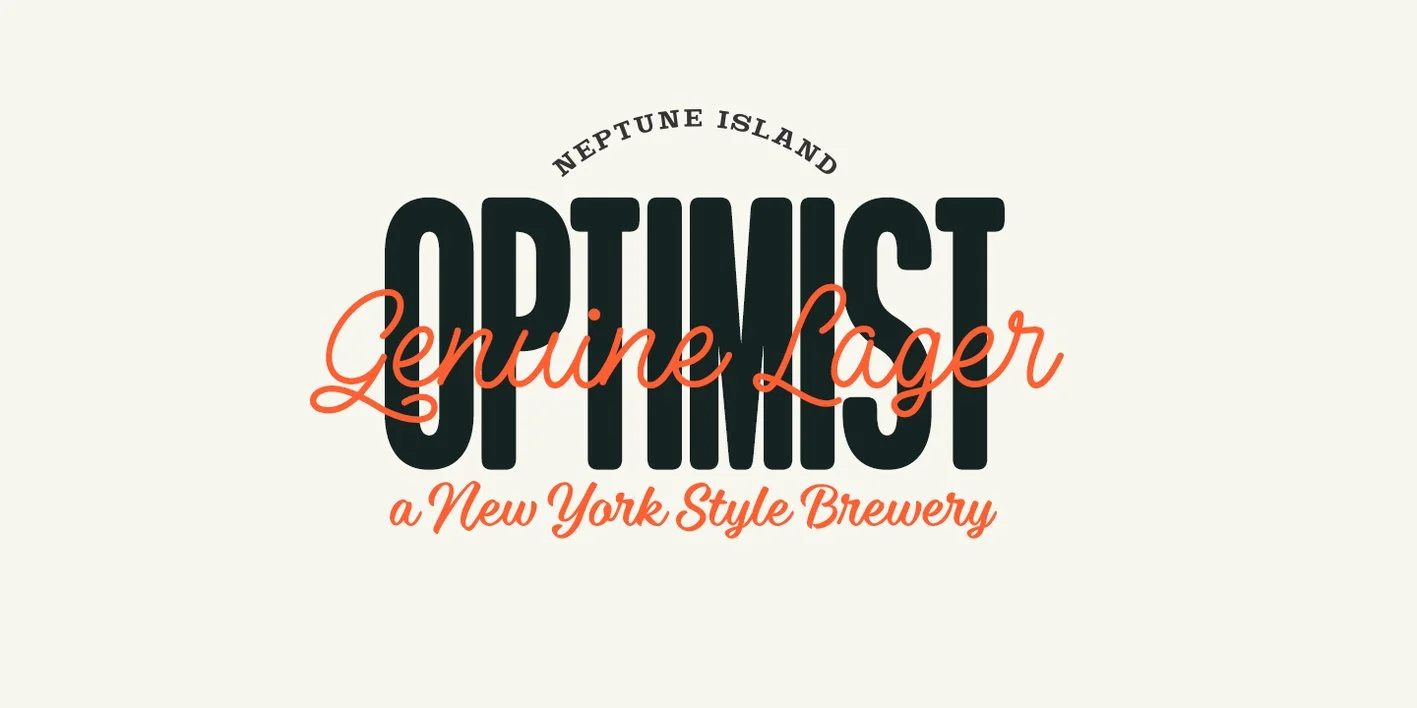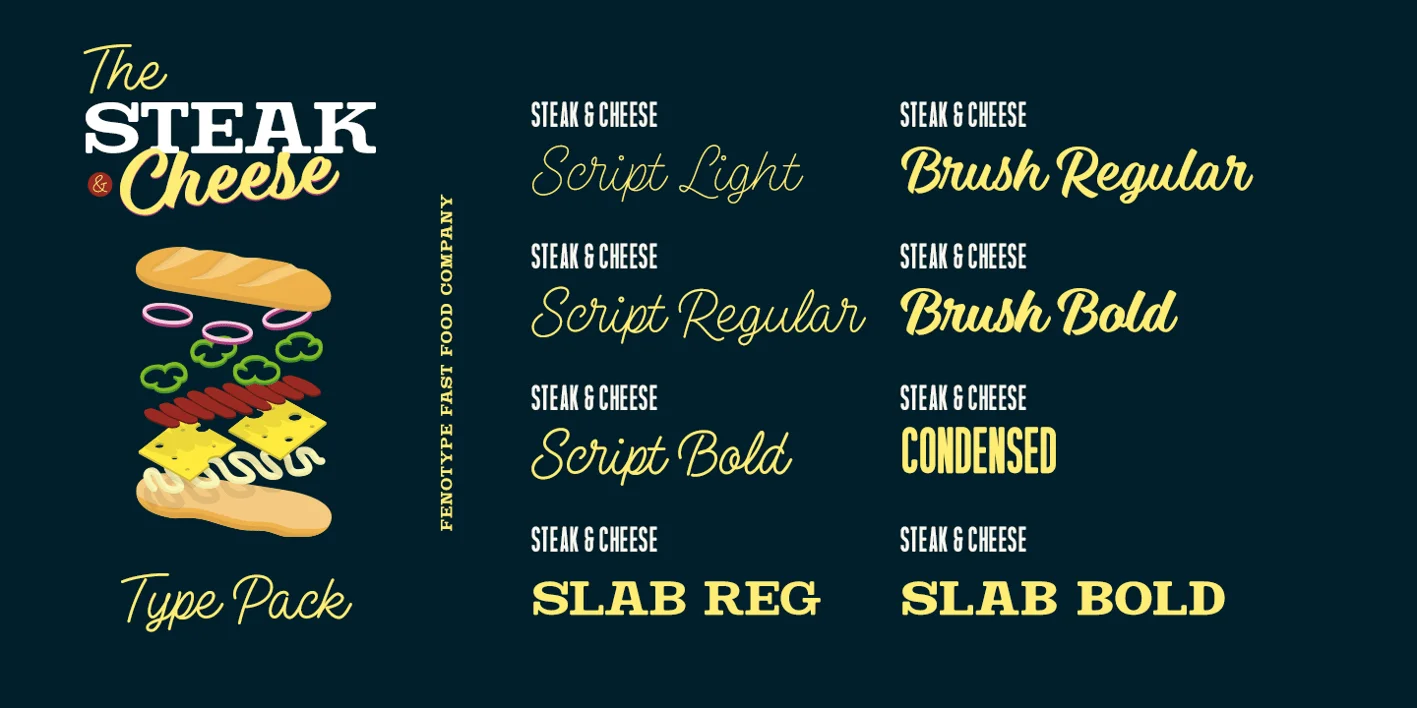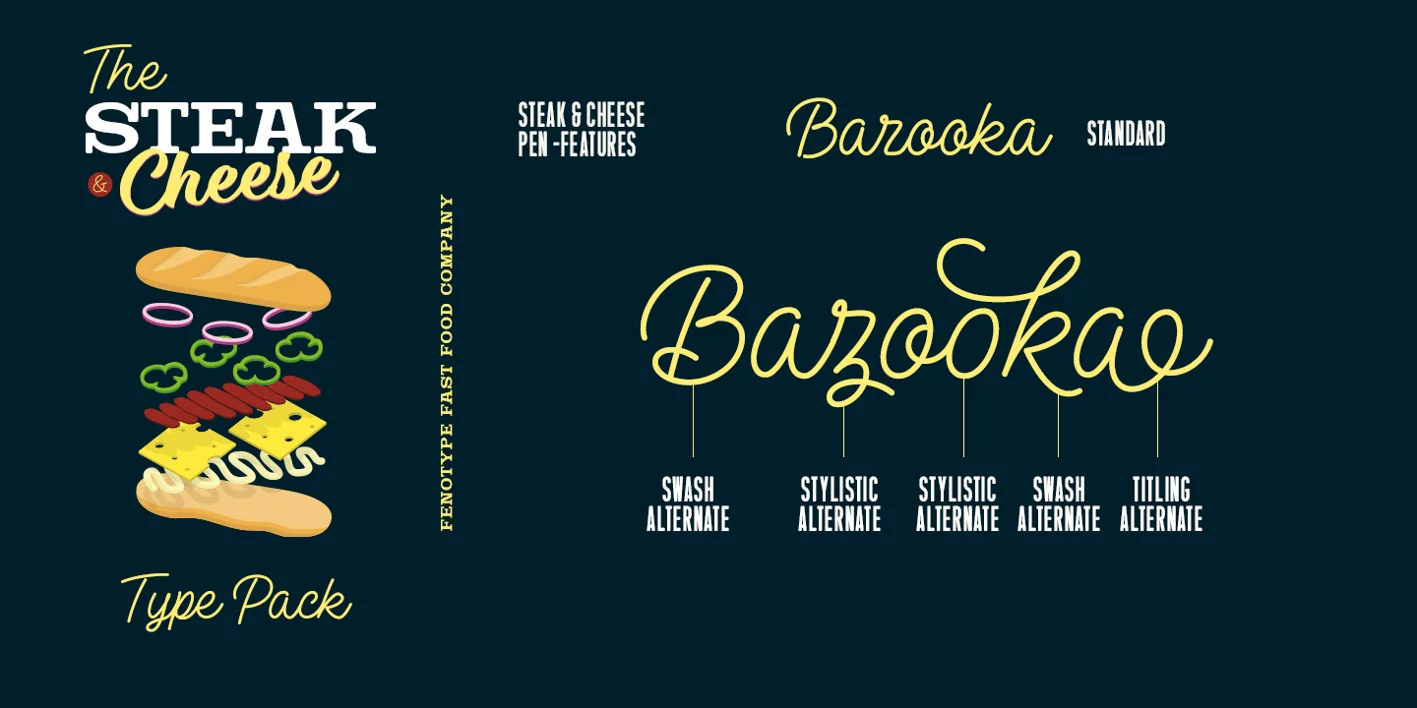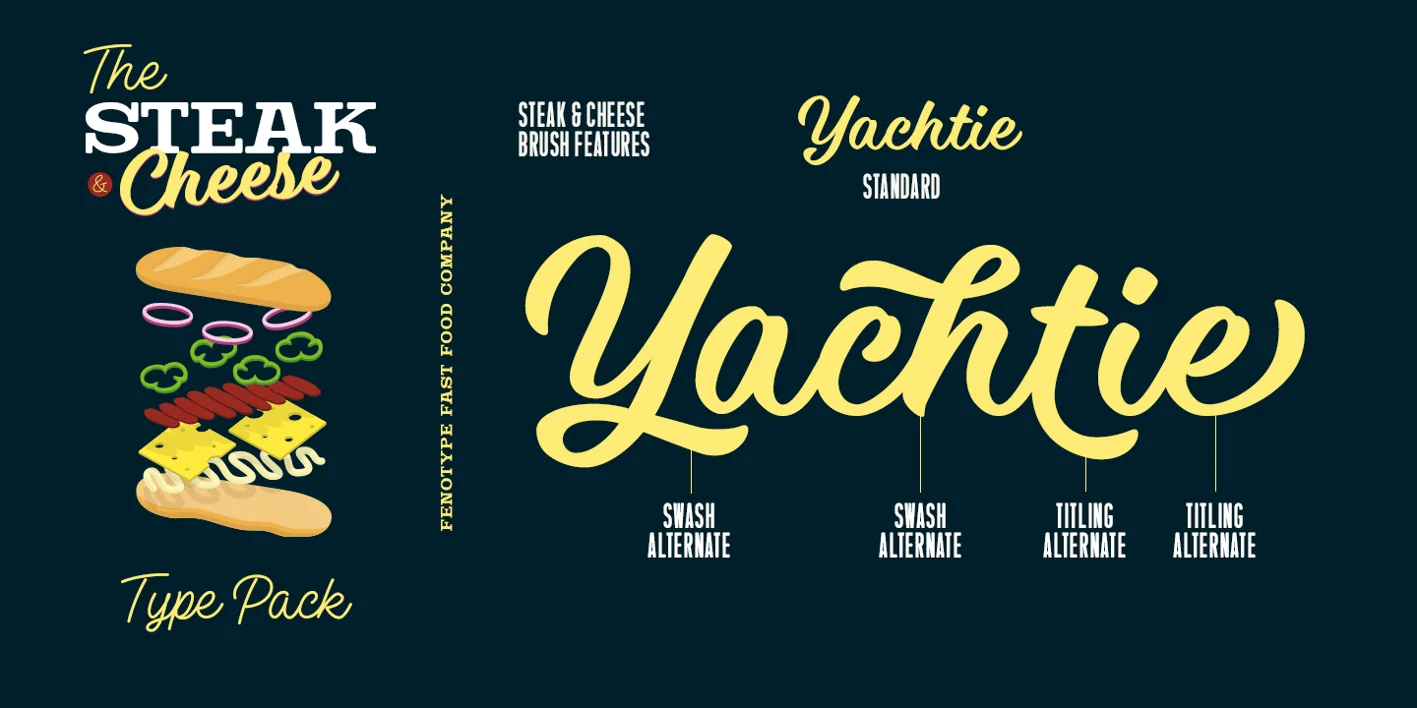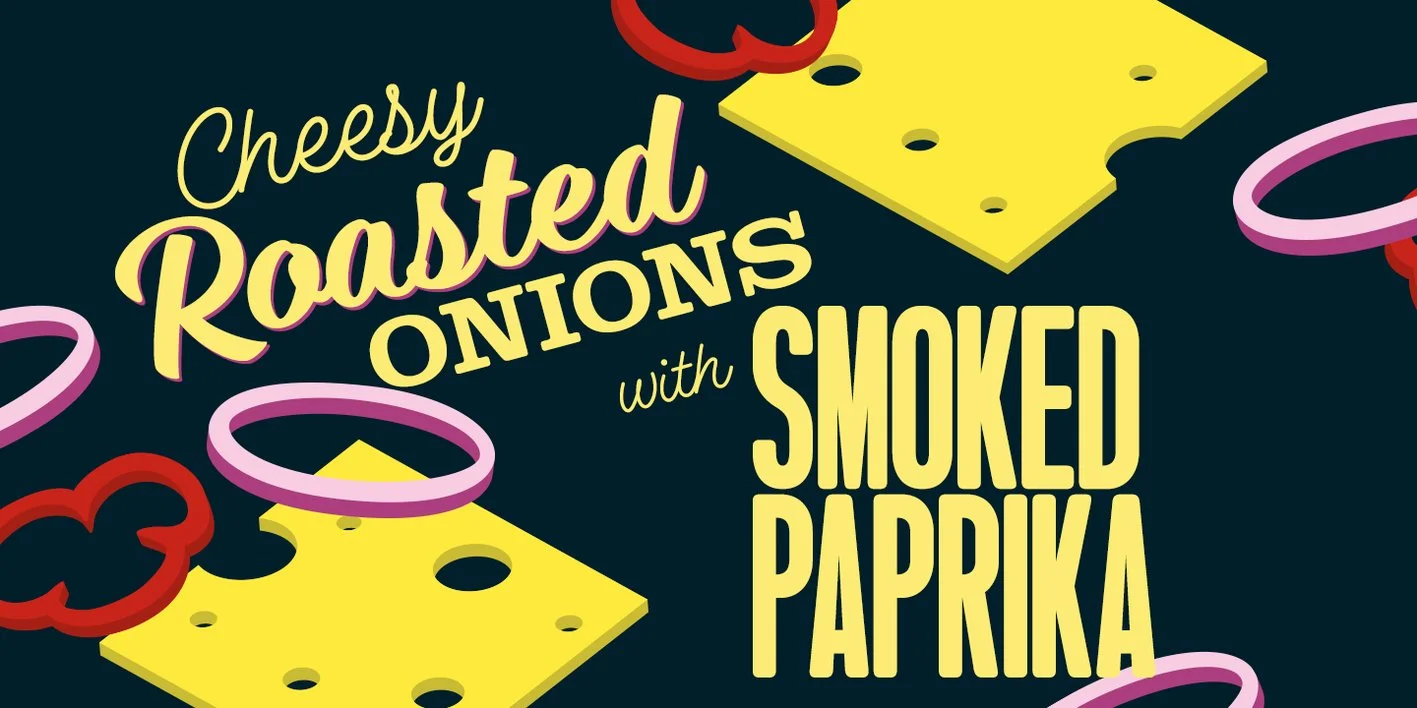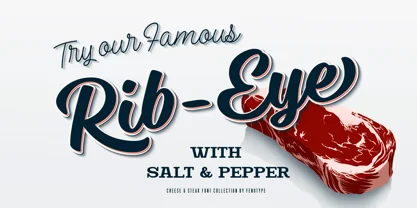
Steak And Cheese Font
When a design brief calls for both consistent type colour across continuous text and immediate visual impact, type choices matter — Steak And Cheese answers that brief. The typeface brings a versatile sensibility to a broad range of creative disciplines, with strong typographic hierarchy support that holds up whether the work is print-first or screen-first.
In practice, Steak And Cheese proves particularly effective for advertising campaigns, logo design, editorial layouts, packaging design, web design. Designers reaching for it find that the type decisions feel resolved rather than laboured — a useful quality when client timelines are tight.
The range of applications extends to poster creation, brand identity systems, environmental graphics, social media graphics. That breadth is deliberate: the proportions and spacing were stress-tested across a wide range of mock briefs before the typeface was finalised.
Steak And Cheese sits comfortably alongside both classic and contemporary typefaces in multi-font hierarchies. It takes direction rather than competing for attention — a quality that experienced designers know is harder to find than it appears.
UX designers establishing typographic systems for digital products find Steak And Cheese a reliable choice for projects that demand both personality and restraint. The design avoids the self-conscious quirkiness that dates quickly, settling instead for considered distinctiveness that holds up over time.